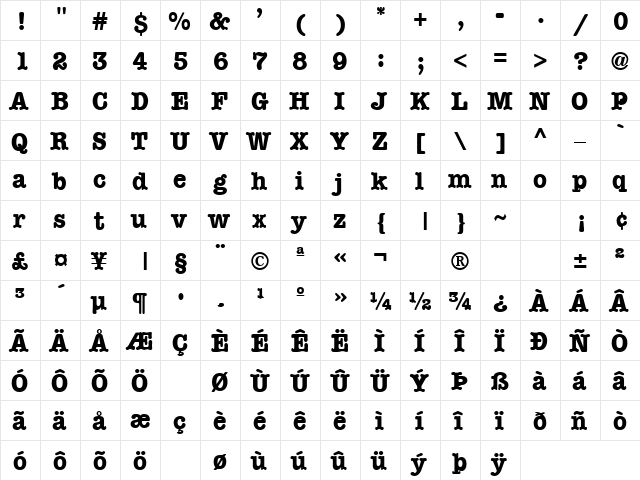
Teeny 1 Bold
Design Context for Teeny 1 Typeface
Teeny 1 takes a measured approach to typography — its balanced proportions and neutral character make it a reliable workhorse for both digital and print work. The heavy weight commands attention and anchors typographic hierarchies.